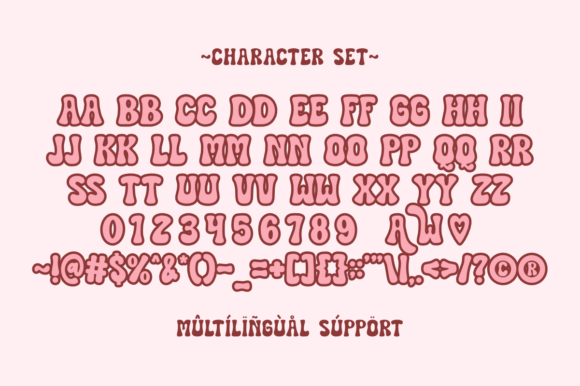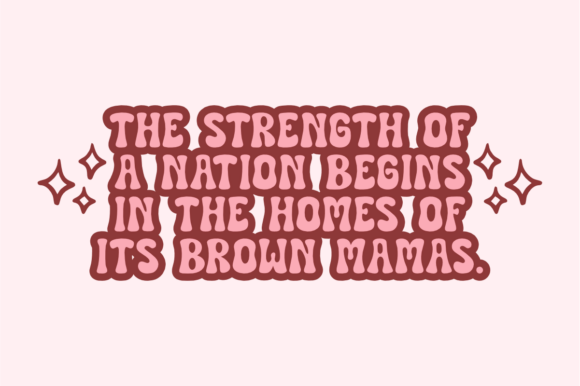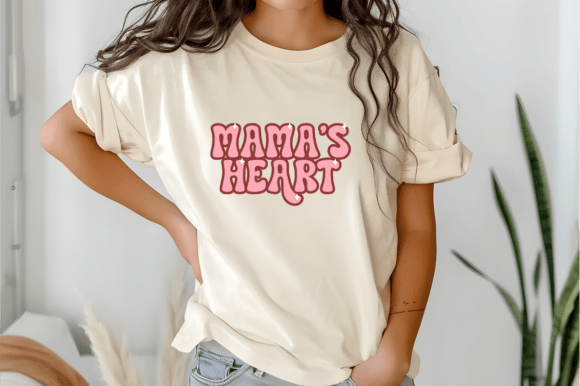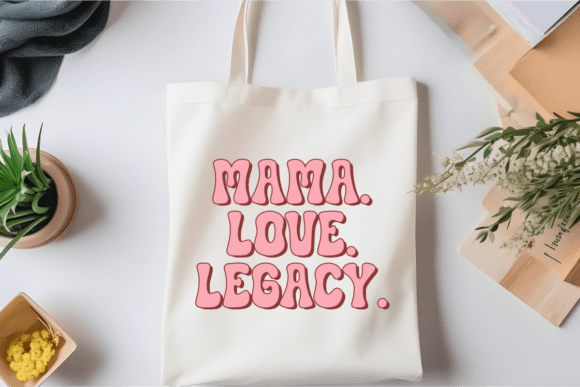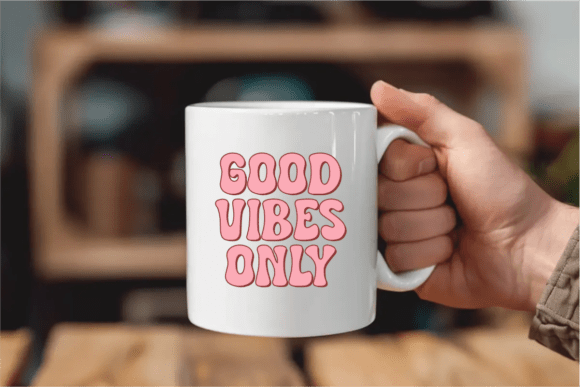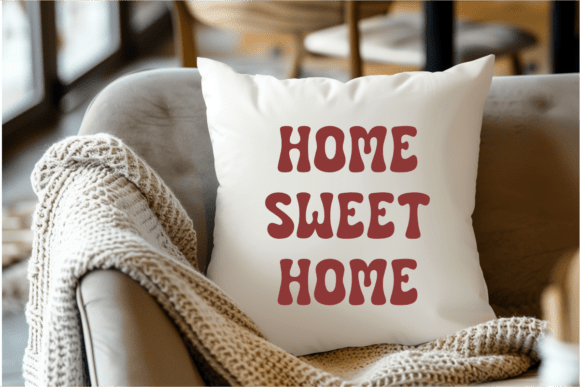
Brown Mama Font: The Ultimate Groovy Display Font for Your Creative Projects
Are you tired of using the same old fonts for your designs? Look no further! Introducing Brown Mama, a modern, bold, retro groovy display font that’s sure to add a joyful touch to your creative projects. With its unique and eye-catching style, Brown Mama is the perfect addition to any designer’s toolkit.
What Makes Brown Mama Font So Special?
Brown Mama is more than just a font – it’s a statement piece. Its bold and playful design makes it perfect for adding a touch of personality to your designs. Whether you’re working on a logo, a poster, or a social media graphic, Brown Mama is sure to make your project stand out from the crowd.
One of the key features that sets Brown Mama apart from other fonts is its retro groovy vibe. Inspired by the fun and playful designs of the 1960s and 1970s, Brown Mama is the perfect font for anyone who loves vintage style. Its bold lines and curvaceous shapes make it a joy to use, and its versatility ensures that it will fit in with any design aesthetic.
Why Designers and Crafters Love Brown Mama Font
So why do designers and crafters love Brown Mama font? For starters, it’s incredibly easy to use. With its clean and simple design, Brown Mama can be used in a variety of contexts, from digital designs to print projects. Plus, its bold and playful style makes it perfect for adding a touch of personality to any project.
Another reason designers and crafters love Brown Mama is its versatility. Whether you’re working on a logo, a poster, or a social media graphic, Brown Mama is sure to fit in. Its retro groovy vibe makes it perfect for projects that require a fun and playful touch, while its bold and modern design ensures that it will work well in more contemporary designs.
Here are a few tips for using Brown Mama font in your designs:
- Use it as a statement piece: Brown Mama font is bold and playful, so use it to make a statement in your designs. Try using it as a headline or title font to add a touch of personality to your project.
- Pair it with other fonts: Brown Mama font looks great when paired with other fonts. Try pairing it with a clean and simple font for a bold and modern look.
- Experiment with colors: Brown Mama font looks great in a variety of colors. Try experimenting with different colors to find the one that works best for your design.
In conclusion, Brown Mama font is a modern, bold, retro groovy display font that’s perfect for adding a joyful touch to your designs. With its unique and eye-catching style, Brown Mama is sure to make your project stand out from the crowd. Whether you’re a designer or a crafter, Brown Mama font is a great addition to any toolkit.
Key Features of Brown Mama Font
- Modern, bold, retro groovy display font
- Perfect for adding a joyful touch to your designs
- Unique and eye-catching style
- Retro groovy vibe inspired by the 1960s and 1970s
- What is Brown Mama font?
- Brown Mama font is a modern, bold, retro groovy display font.
- What is Brown Mama font used for?
- Brown Mama font is perfect for adding a joyful touch to your designs, including logos, posters, social media graphics, and more.